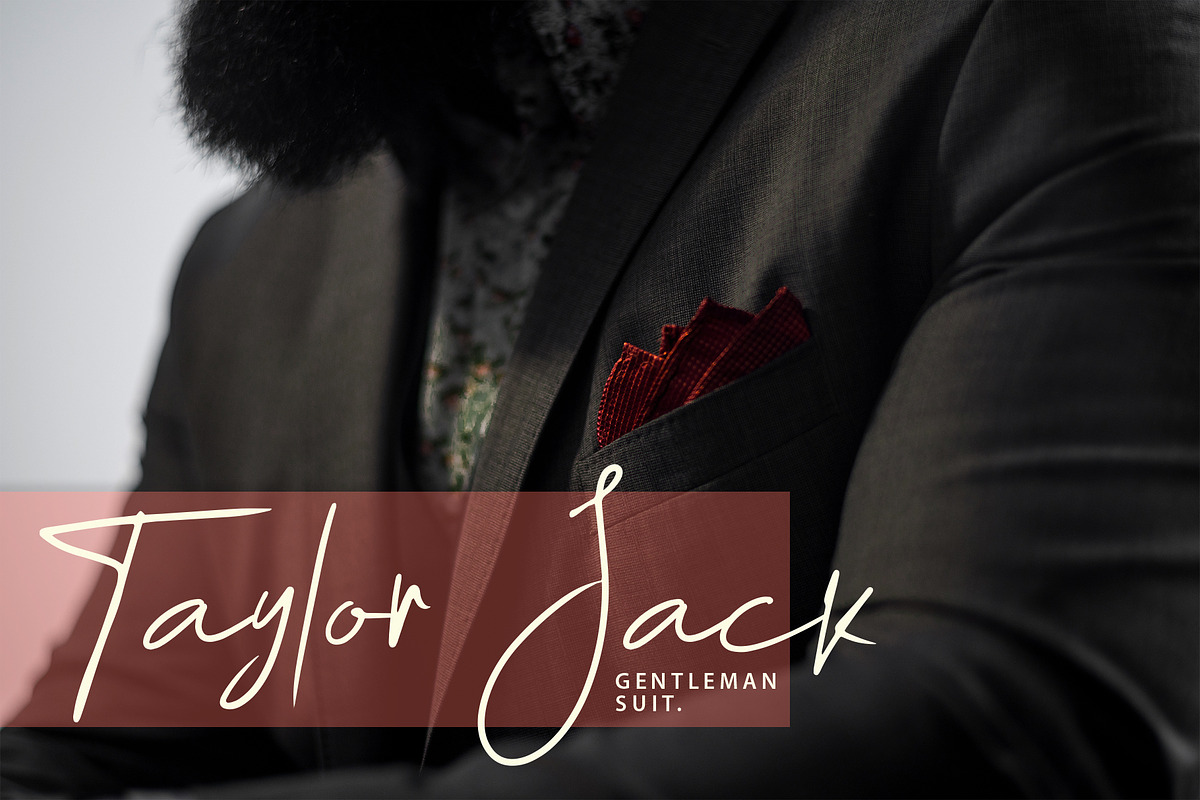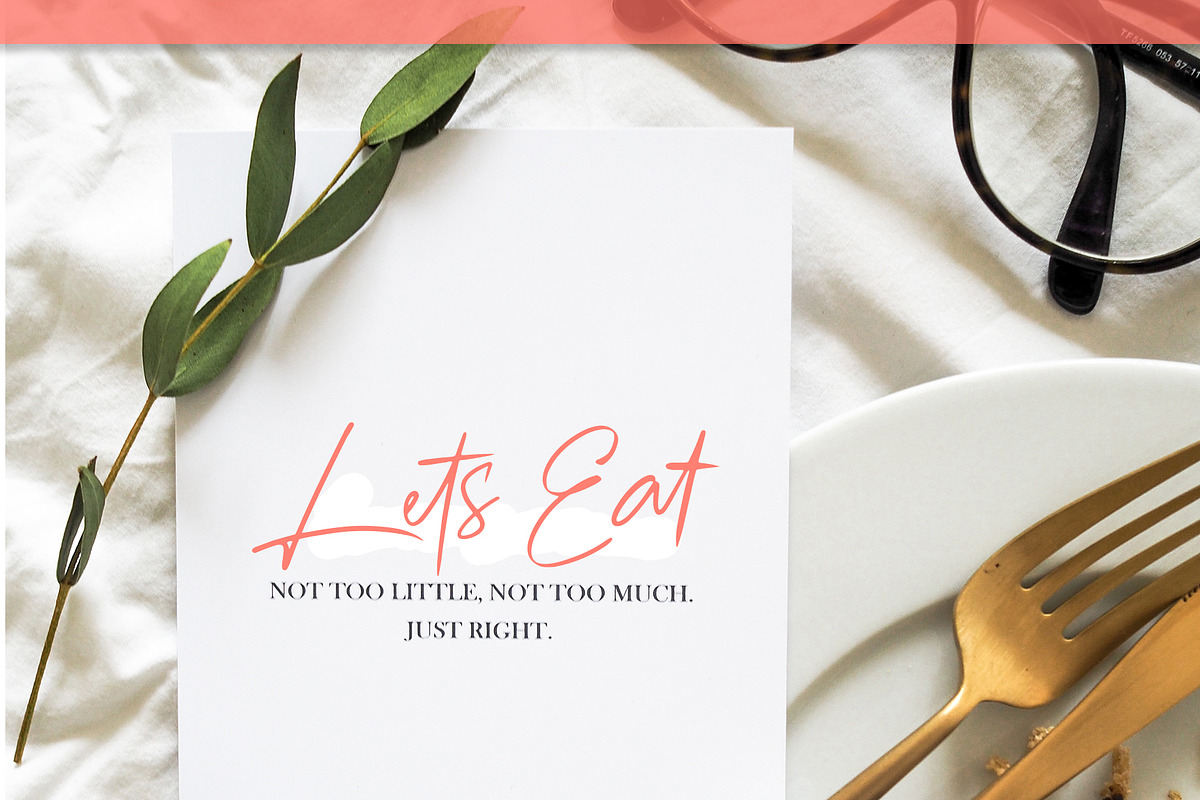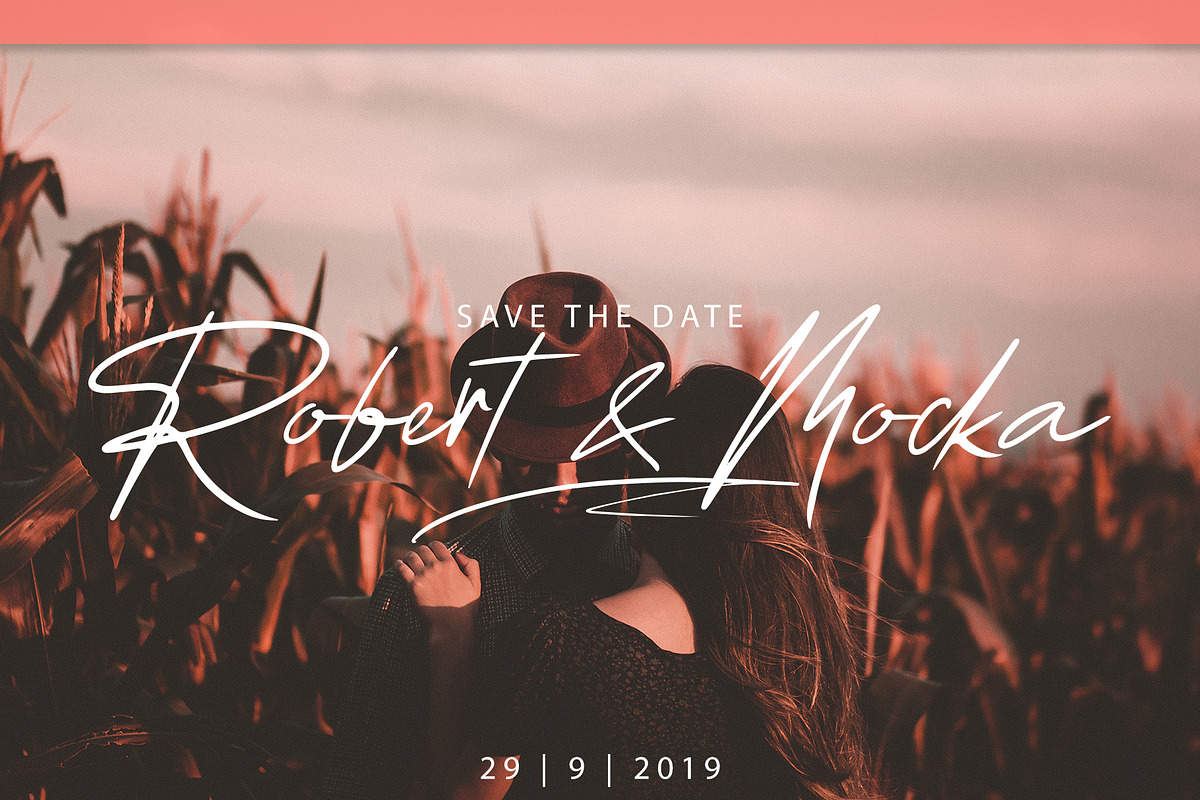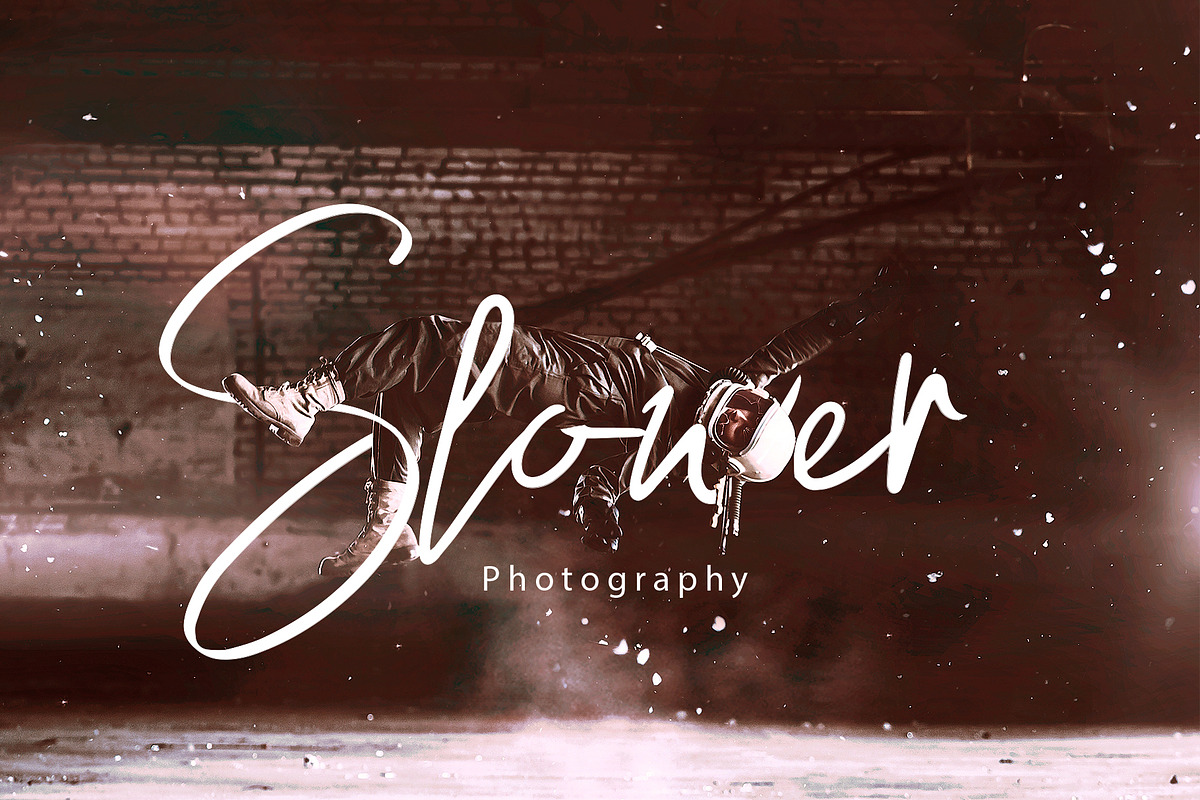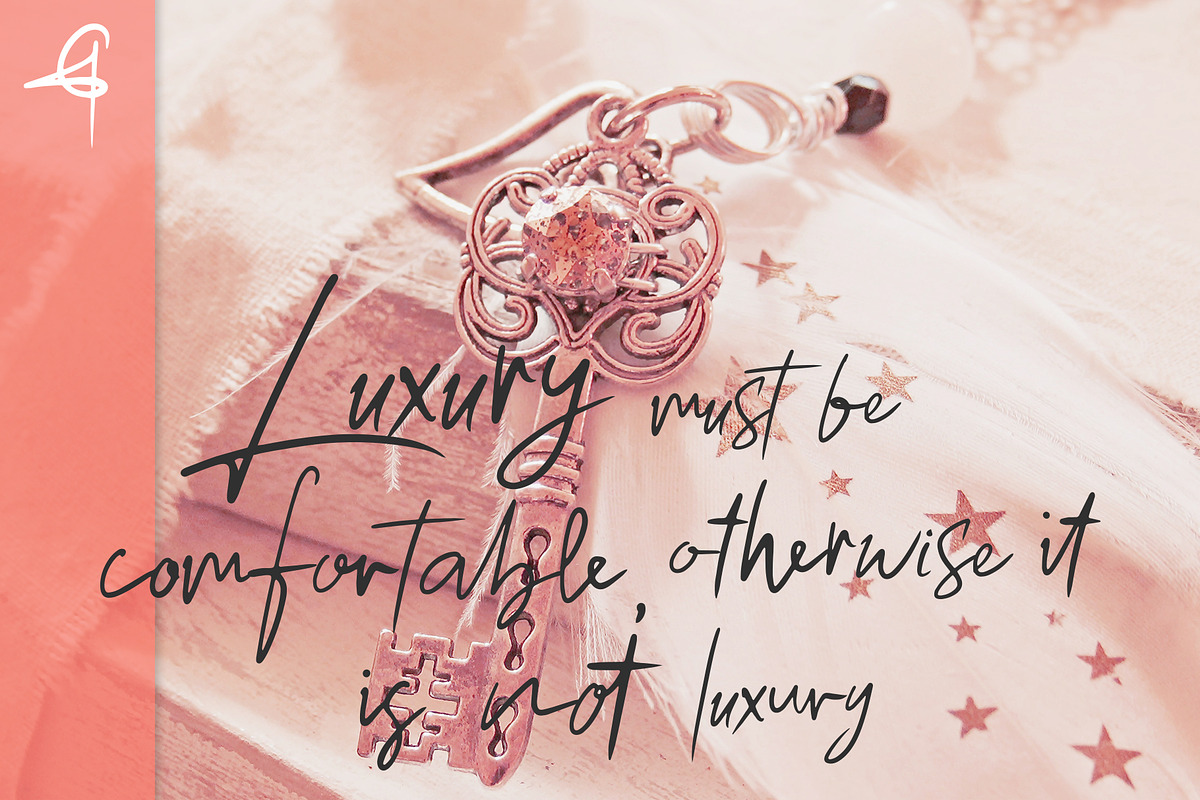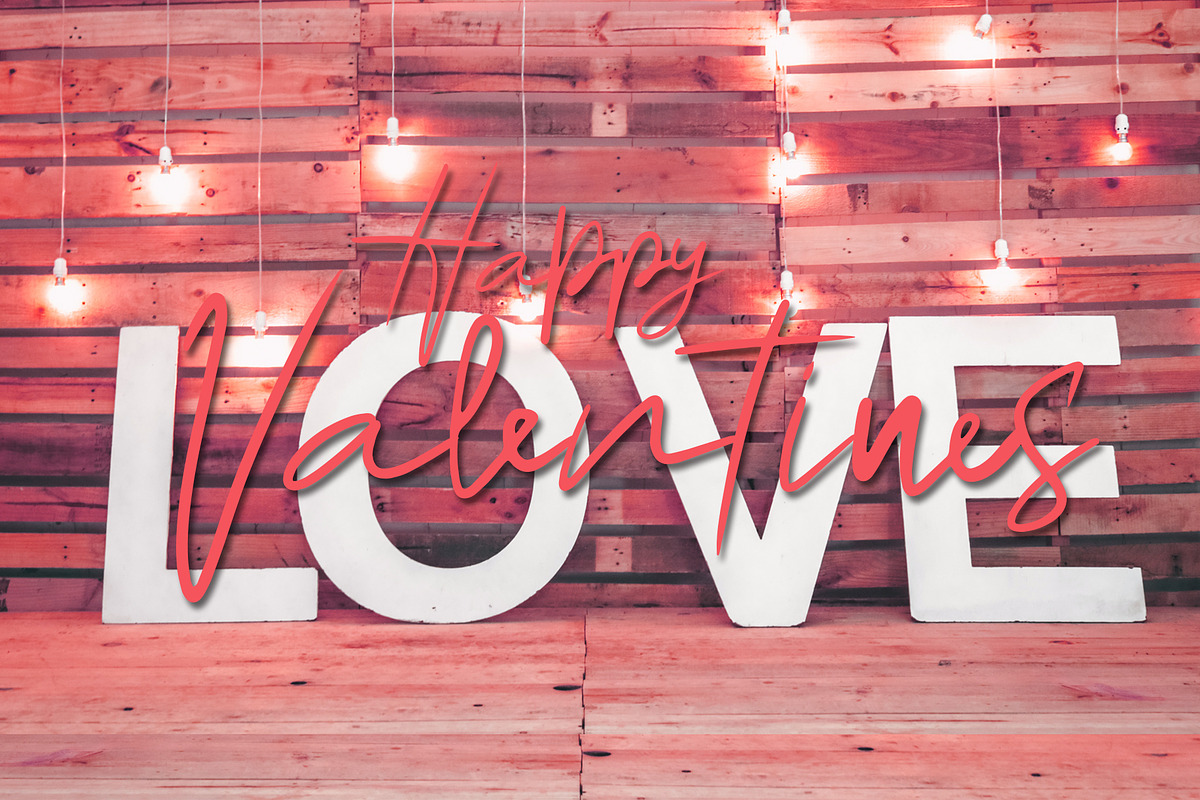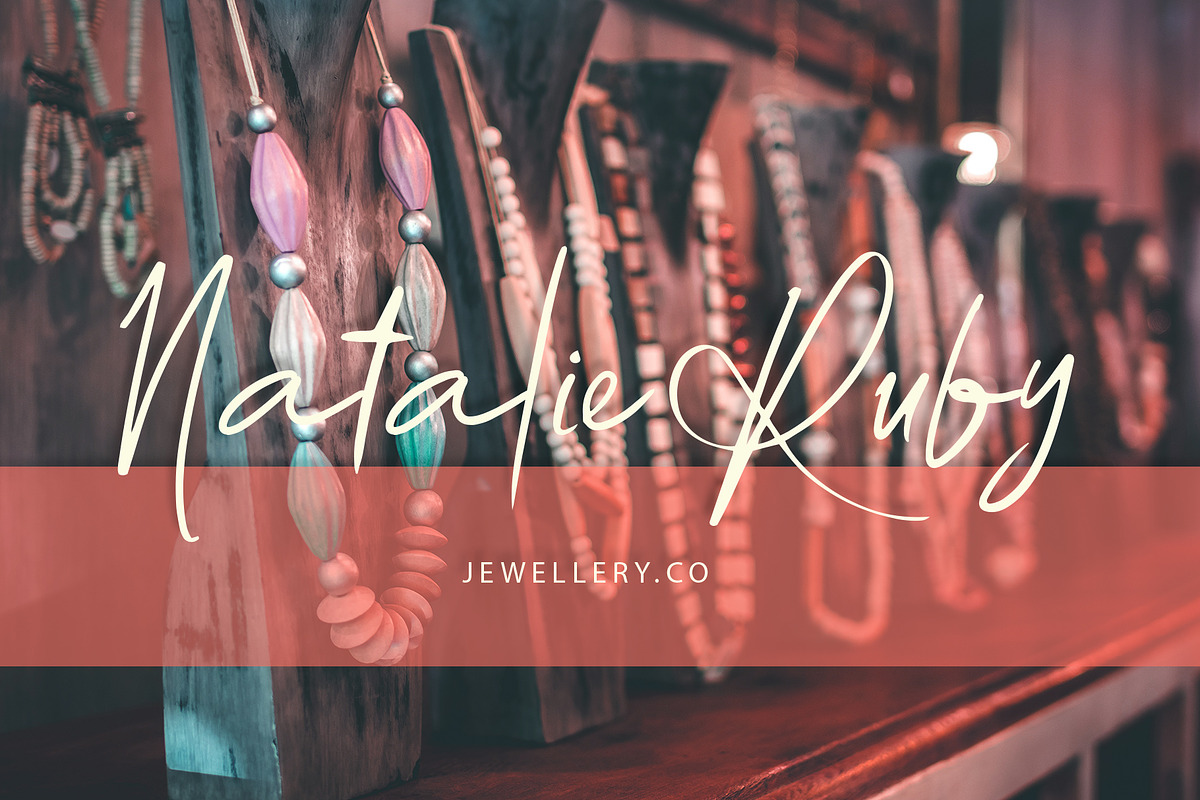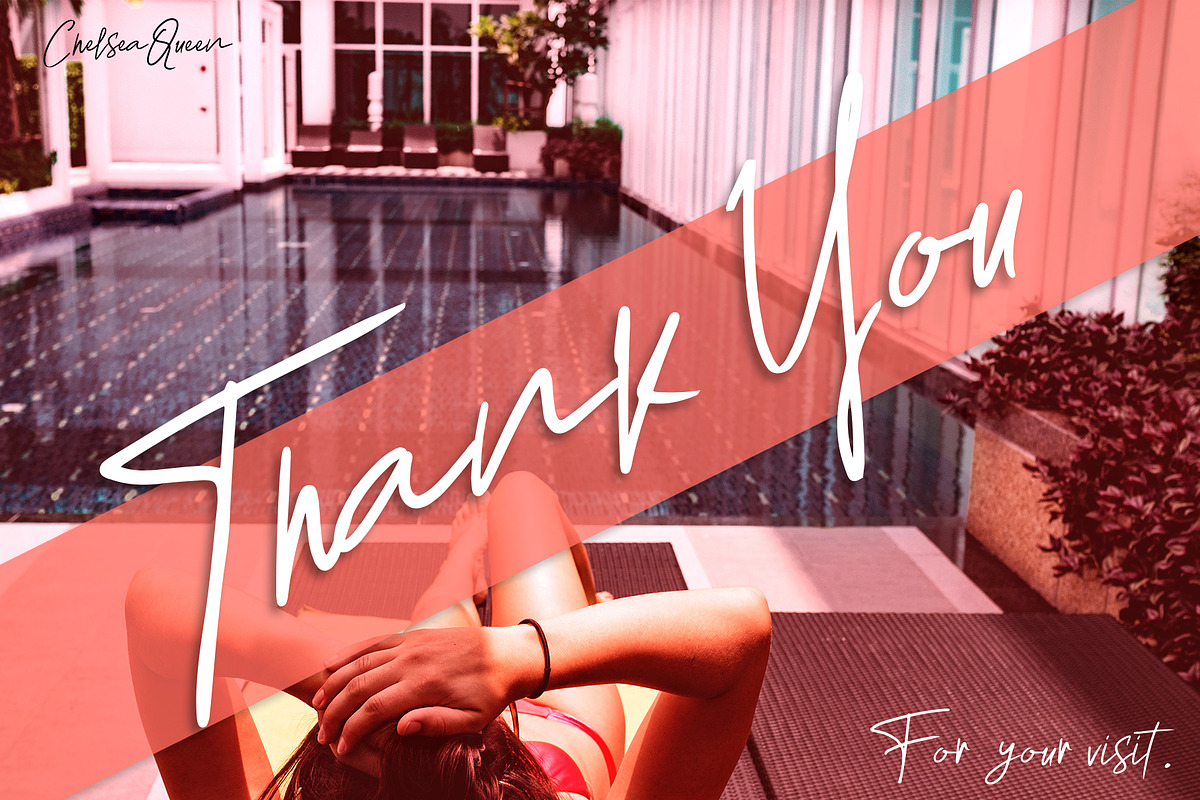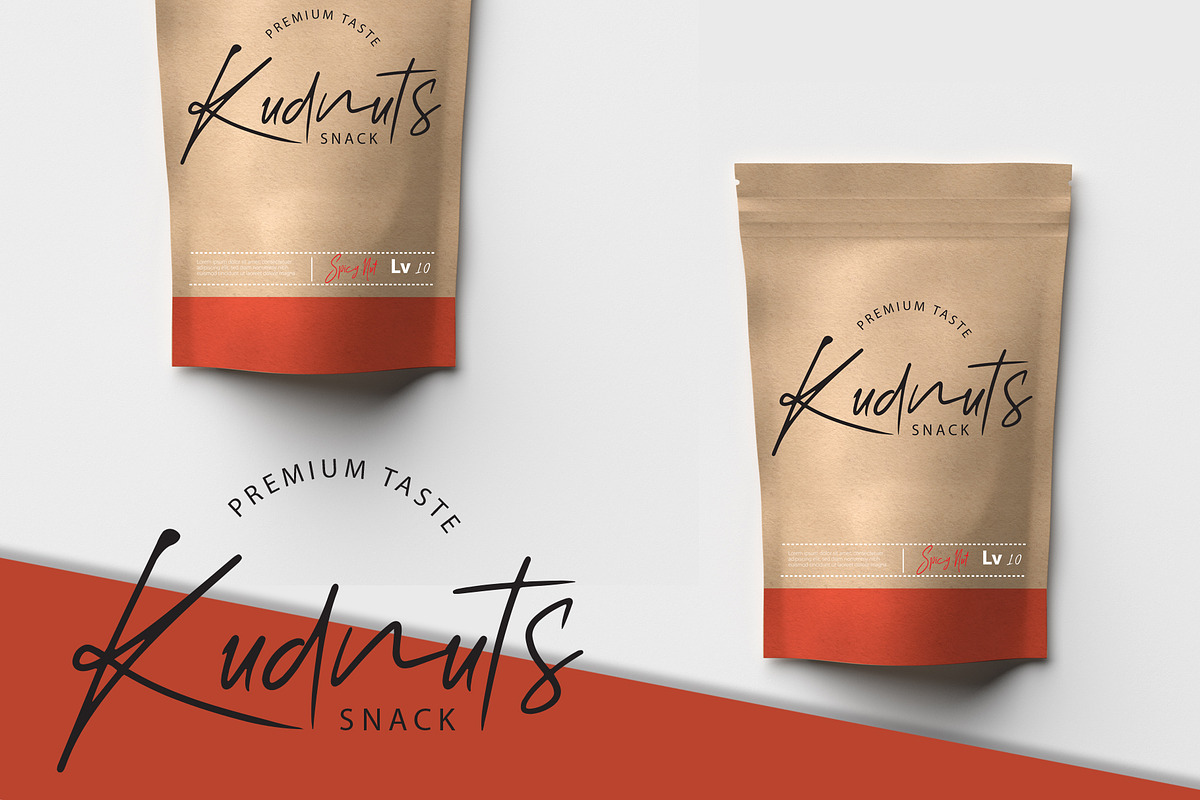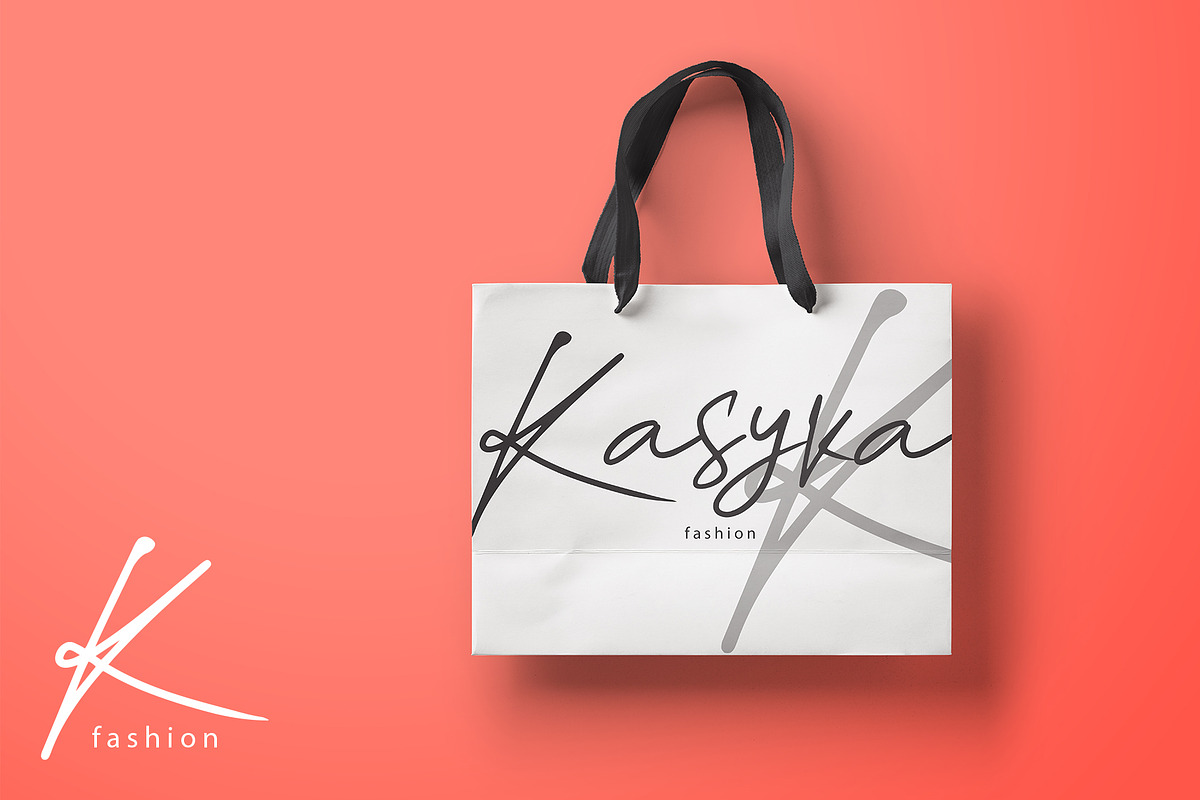
Chelsea Queen || Elegant Signature
Our Latest Products Elegant Signature Fonts!! Chelsea Queen
Chelsea Queen was built with OpenType features and includes numbers, punctuation, alternates, ligatures, swash and icon sign and it also supports other languages.
Chelsea Queen is a very unique font, because there are 85 sets of ligatures that will make writing natural and elegant. This is very suitable for use Logo, Wedding, Fashion, Poster, Menu, Invitation and there is still much that can be done with this font.
- 85 set of LIGATURES (make your natural handwriting)
- UPPERCASE and lowercase
- Swash and sign font ( A-Z and a-z )
- Panctuation and numeral
extended Latin characters for language support.